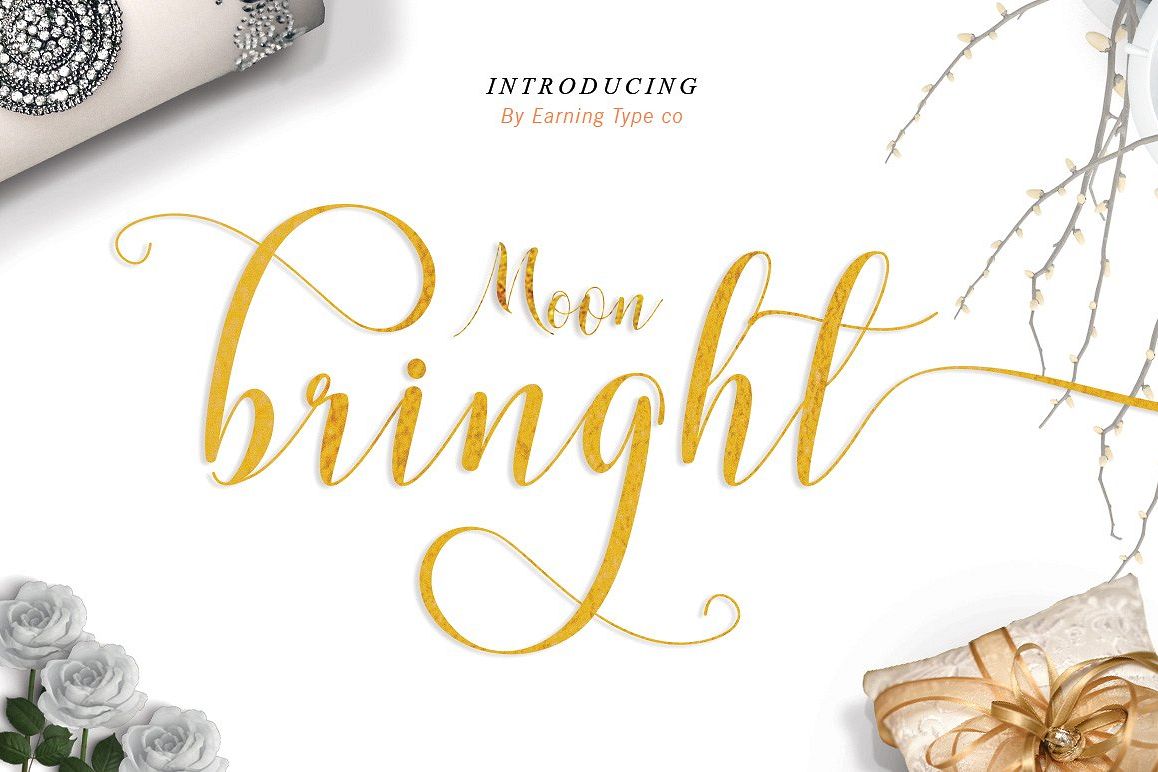
Moonbringht
script is fresh and modern, inspired by calligraphy! So beautiful on
invitations such as greeting cards, branding material, business cards, quote,
posters, and much more!!
Moonbringht
script comes with 496+ glyphs.